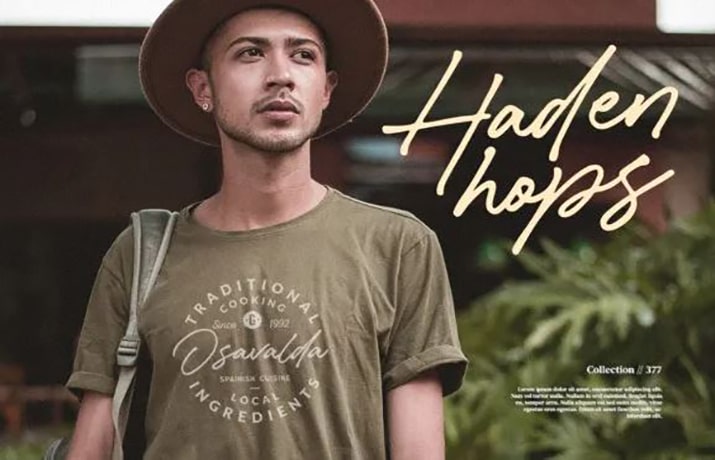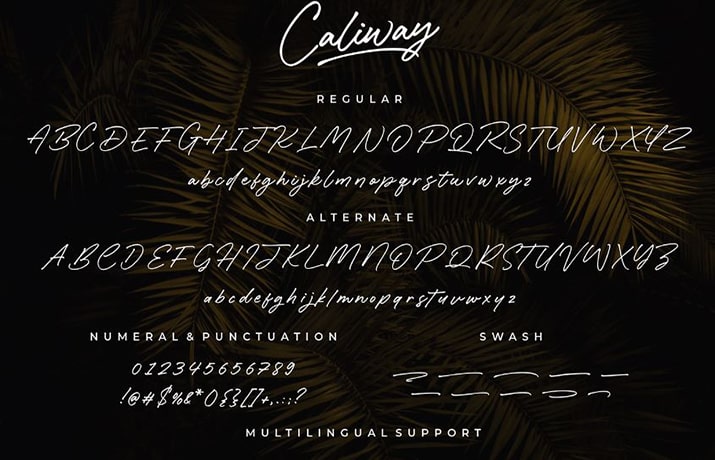
The hand-drawn forms, texture, and alternates featured in Caliway Font make the font suitable both for formal and informal projects.
It was created by Letteralle Studios that is an Indonesian font foundry established in 2018 by Annas Alam Yahya.
It is made with a stylish brush with a natural flow infused by the designer. And also he adds extra curves to make the whole structure cool and efficient.
Basically, this typeface draws inspiration from current trends of connecting and sharing friendships and uploading pictures on social media platforms.
You can use this simple font in large design spaces. For example, it can be used to create wedding cards, invitations, official business cards, brochure layouts, birthday cards, fashion industry, book covers, posters ads, banner ads, movie title designs, etc.
This font can be found in a single variant. This style contains a full set of lower & uppercase letters, a large range of punctuation, numerals, and multilingual support.